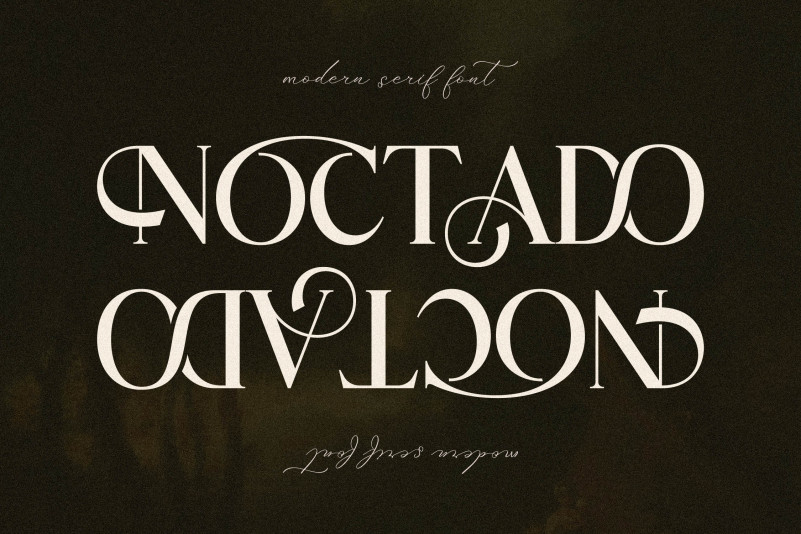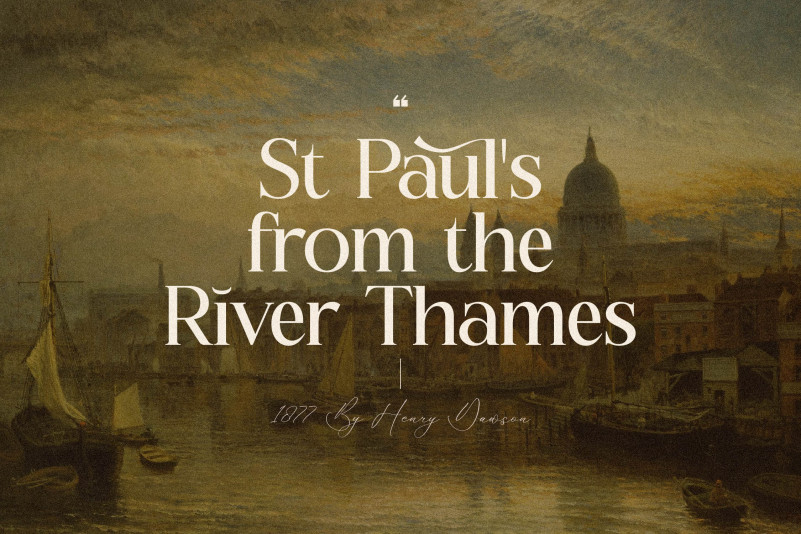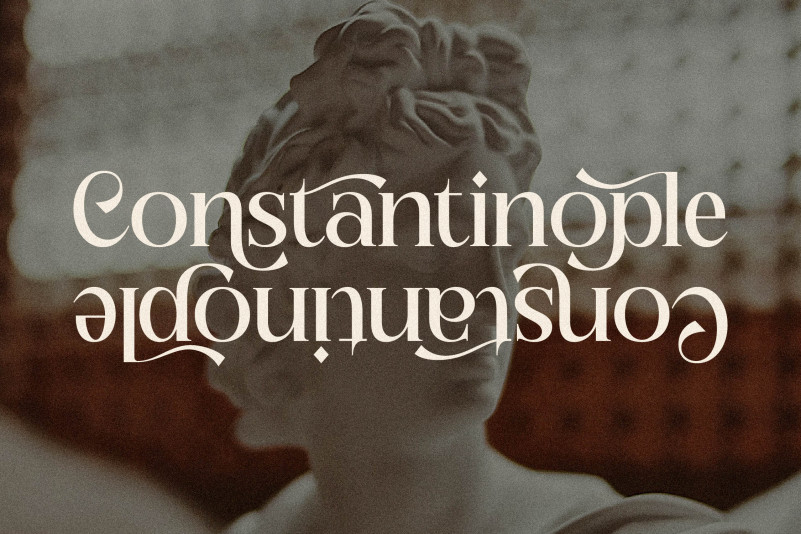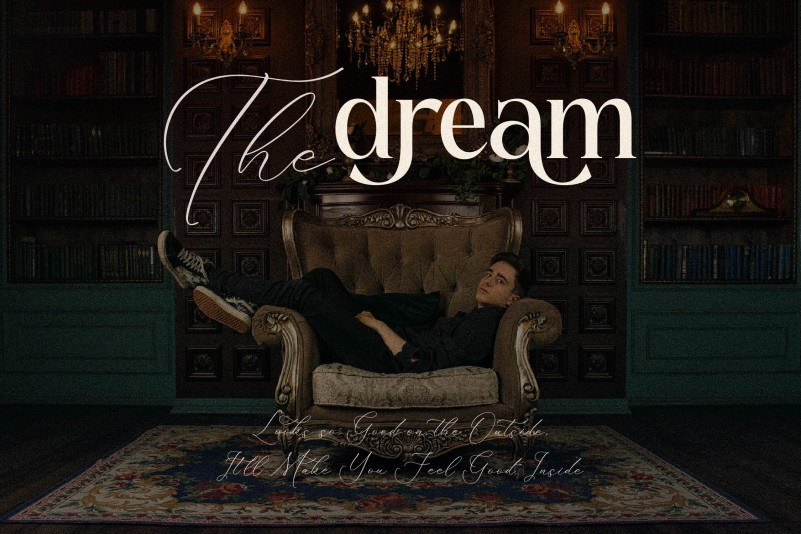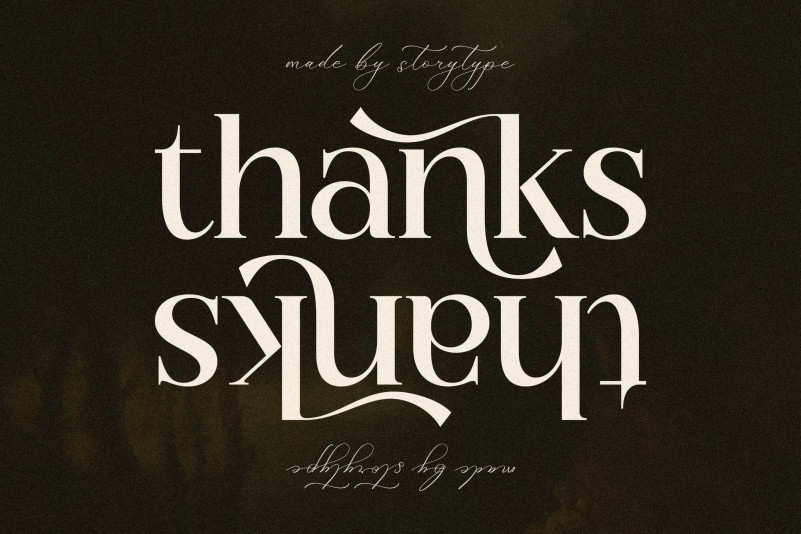
Noctado Font
Noctado Serif Font is a serif modern and classic typeface that has own unique style & modern look. This typeface is perfect for an elegant & luxury logo, book or movie title design, fashion brand, magazine, clothes, lettering, quotes, and so much more.